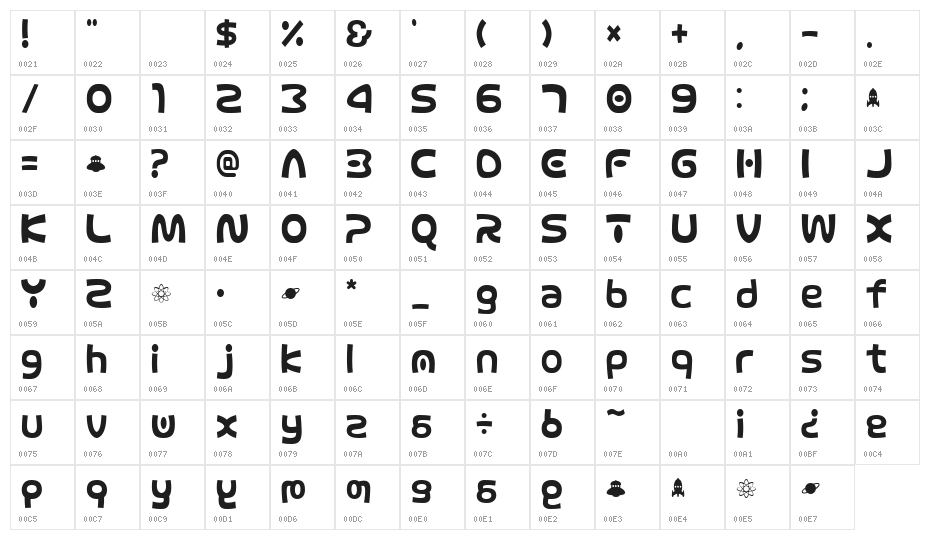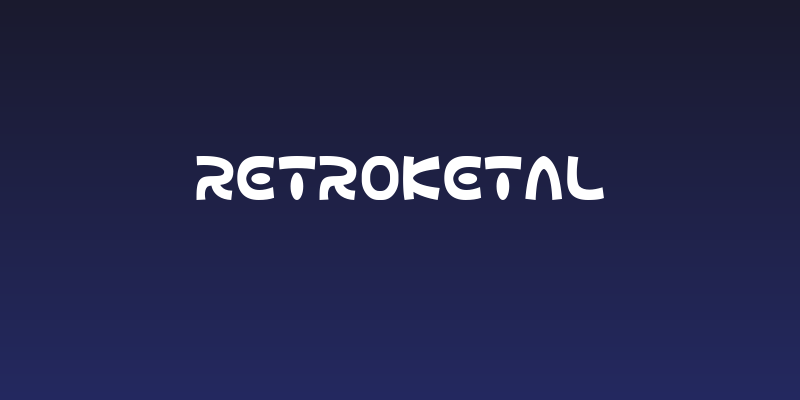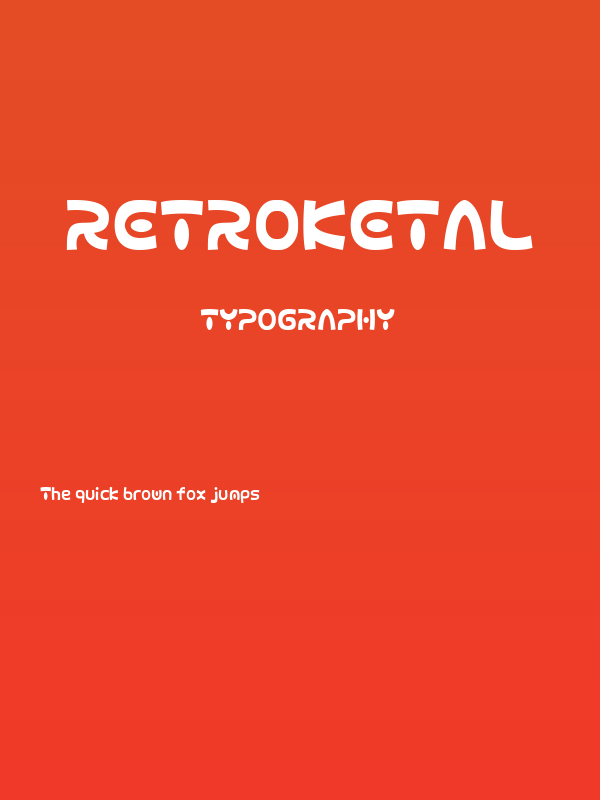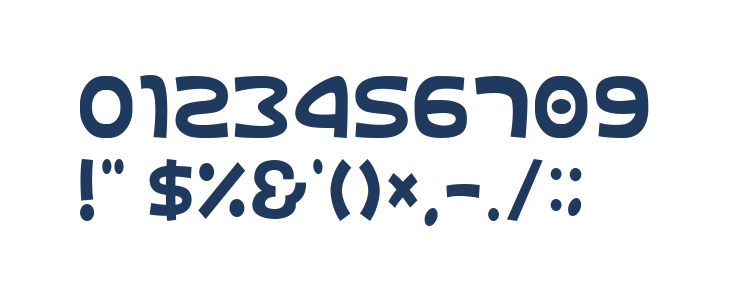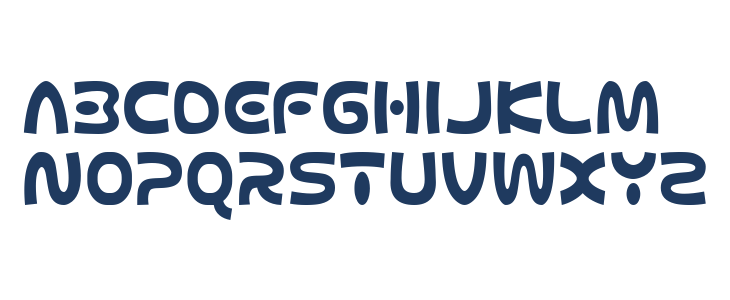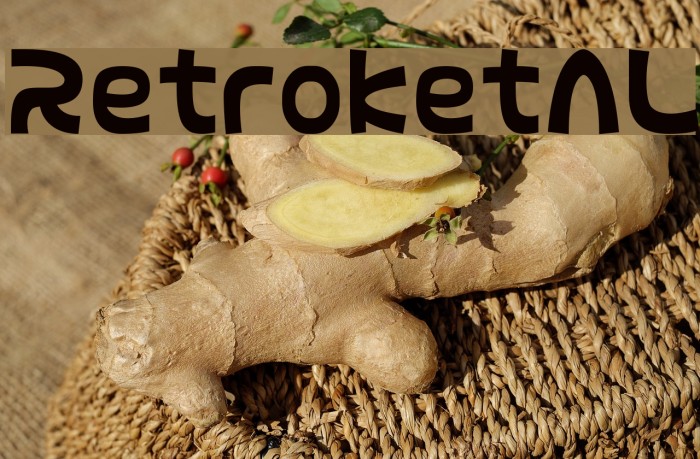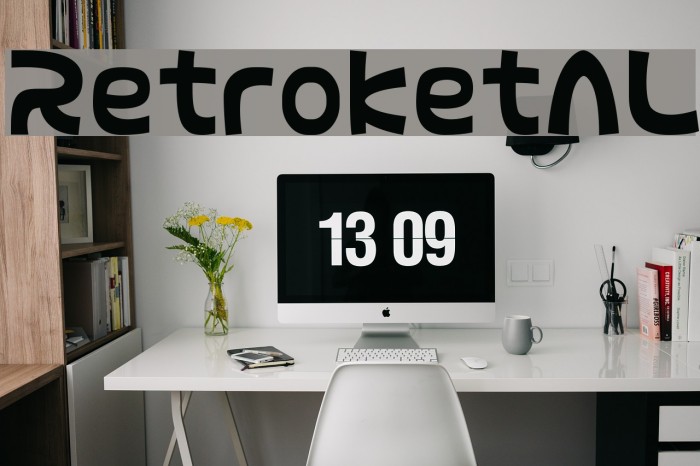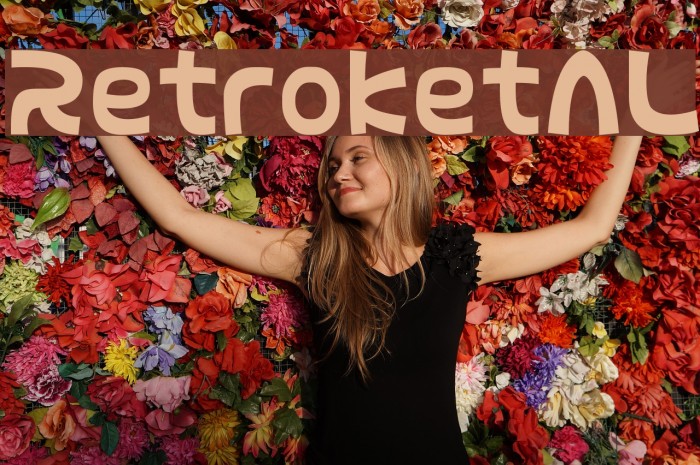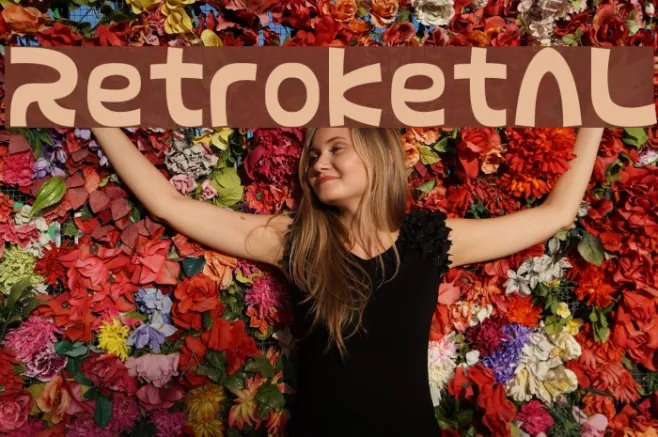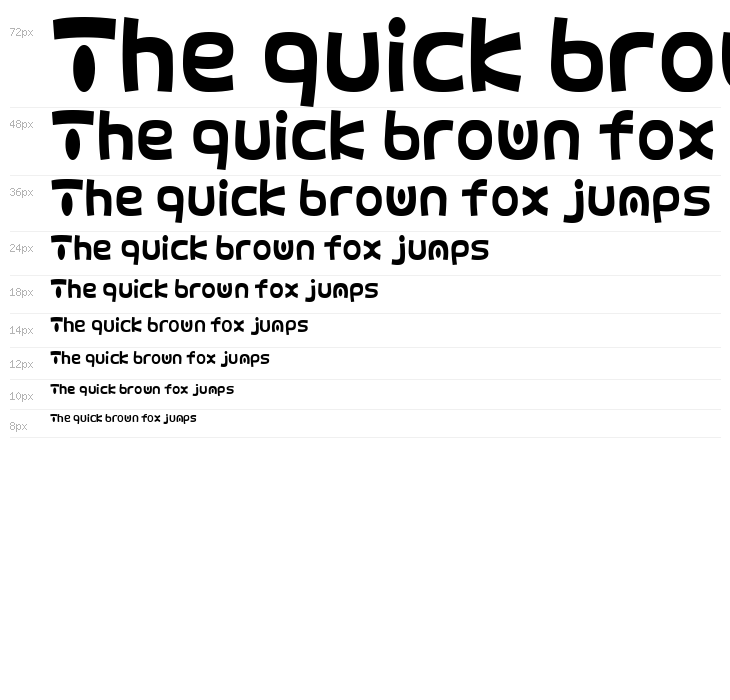
This font features a playful and retro aesthetic, characterized by its bold and rounded letterforms. The characters exhibit a unique curvature, giving them a whimsical and dynamic appearance. The uppercase and lowercase letters maintain a consistent style, with a slight variation in stroke width that adds to the font's charm. The numerals and special characters are designed to complement the overall style, making them suitable for a variety of creative applications. The font's distinct personality makes it ideal for projects that aim to capture a sense of nostalgia and fun.
| Overall Style | Retro |
| Proposed Projects | Ideal for vintage-themed posters, playful branding, retro merchandise, and creative advertising. |